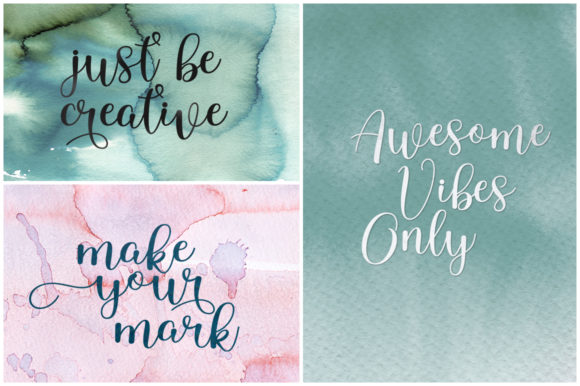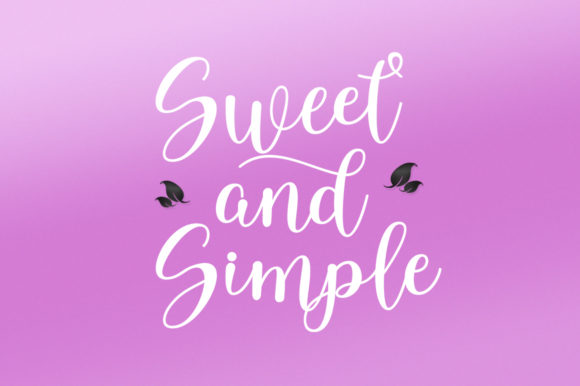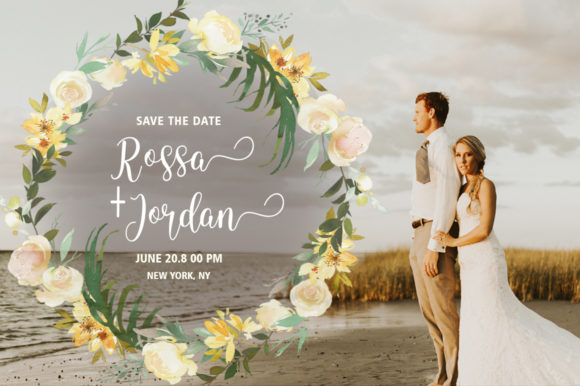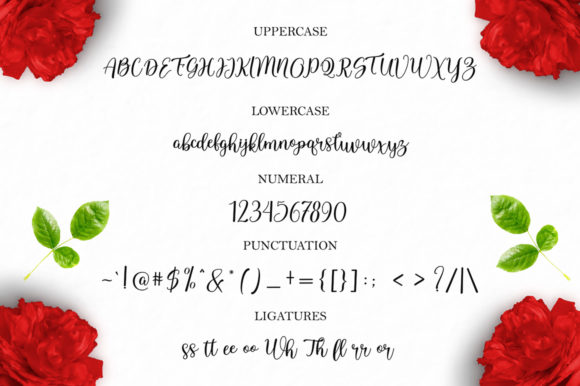
Introduction to Samarra Font
As a designer, have you ever stumbled upon a font that sparks an idea and refuses to let go? For me, it was the Samarra Font – a romantic and unique script that adds a bold, whimsical touch to any design project. I remember the moment I discovered it: I was working on a wedding invitation design and was searching for the perfect font to match the couple’s vintage, bohemian style. The Samarra Font was love at first sight – its elegant, handwritten feel instantly captured the essence of their special day.
What makes the Samarra Font truly valuable for designers is its versatility and high quality. Whether you’re working on a free download project or a high-end design resource, this font is sure to elevate your creative project with its transparent background and beautiful, cursive script. Whether you’re designing a romantic invitation, a wedding website, or a beautiful book cover, the Samarra Font is the perfect addition to your design arsenal.
Key Features of Samarra Font
- High-quality font design ideal for creative projects, offering a unique and elegant aesthetic.
Honest Review: Samarra Font
I recently came across the Samarra Font while searching for a free download to enhance my creative project. As a designer, I was excited to see how it would perform in my design.
The first thing I noticed was the high quality of the font, with clear and sharp letters that looked great on both light and dark backgrounds. The font also comes with a transparent background option, which is perfect for designers who want to add an extra layer of customization to their design resource.
Here are some features that work well with the Samarra Font:
- High quality letters with clear details
- Transparency option for added customization
- Perfect for creative projects that require a unique touch
While the Samarra Font is a great addition to any design resource, there are a few limitations to consider: ⚠️
- Limited font styles and weights
- No bold or italic options
Overall, I’m impressed with the Samarra Font and would definitely recommend it to fellow designers who are looking for a free download to enhance their creative project. With a little creativity, this font can be a great asset to any design. ✨
To get the most out of the Samarra Font, experiment with different font sizes, colors, and combinations to create visually appealing designs. This font is ideal for creative projects that require a unique touch.
The Samarra Font is perfect for designing invitations, posters, and social media graphics. Its high-quality design and transparent background make it a valuable design resource for any project.